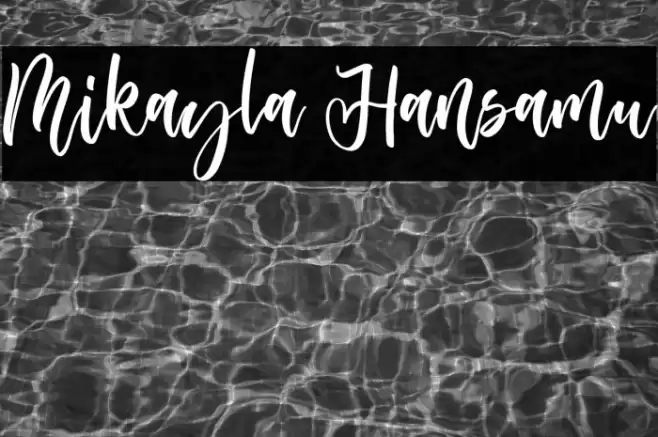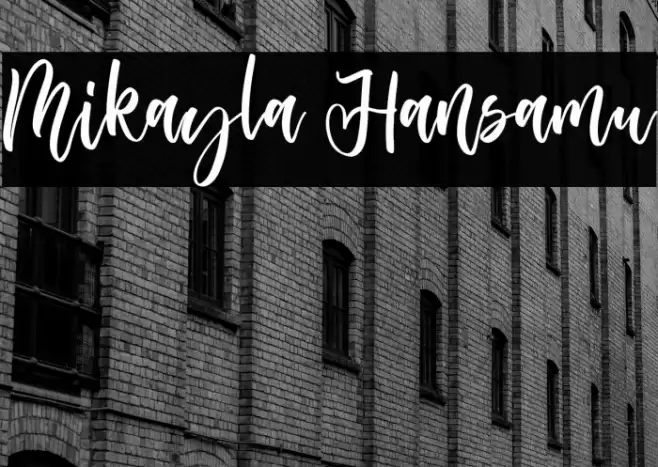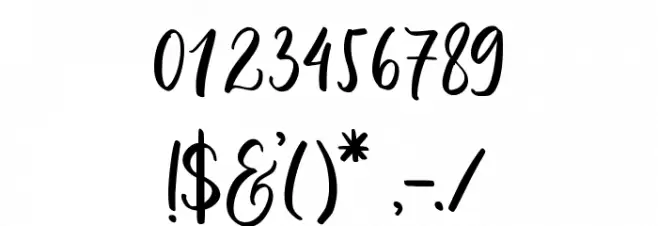
Mikayla Hansamu Font
Mikayla Hansamu Description
This font features a lively and flowing script style, characterized by its elegant and cursive letterforms. The uppercase letters are bold and expressive, with sweeping curves and loops that give a sense of movement and grace. The lowercase letters maintain a consistent style, with smooth connections between characters that enhance readability while preserving the artistic flair. Numbers and special characters are designed to match the overall aesthetic, ensuring a cohesive look across all text. The font's playful yet sophisticated appearance makes it suitable for a variety of creative applications.
A lively script font with elegant, flowing letterforms and artistic flair from Regular fonts.
- Proposed Projects: Ideal for wedding invitations, greeting cards, branding, and social media graphics.
- Use Case: Logos, Headlines, Invitations